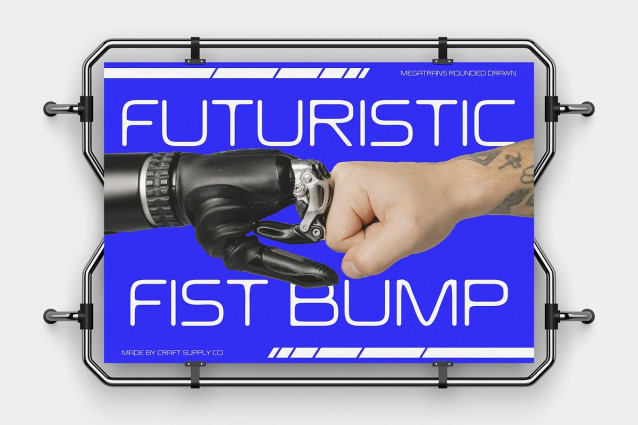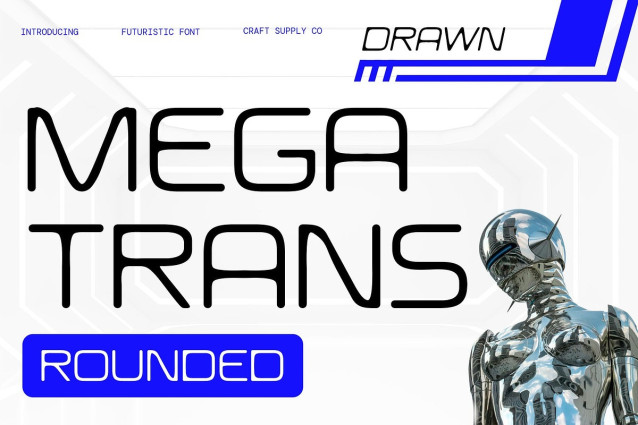
Megatrans Rounded Drawn Font
Megatrans Rounded Drawn is a modern sans serif font that combines futuristic design with a clean, geometric structure. Its sharp yet soft edges create a balanced and efficient form that conveys a sense of precision and organization.
Layered with a Drawn Effect for Artistic Charm What sets this modern font apart is its layered hand-drawn effect. This texture adds depth and personality, creating a contrast between its clean, structured form and the organic quality of the drawn lines. The hand-crafted effect introduces a unique, artistic touch that breathes life into the font, giving it a more creative, expressive feel.
Futuristic, Contemporary, and Forward-Looking The futuristic and contemporary styles of this sans serif font give it a sleek, cutting-edge look that aligns with current design trends. It speaks to innovation and progress, perfect for designs that wish to push boundaries while staying approachable and visually appealing.
Perfect for Creative Branding and Experimental Projects This font is ideal for a range of design applications, especially for creative branding, experimental layouts, or forward-thinking visual projects. Whether used for logos, posters, web design, or any project requiring both modern flair and a touch of artistic humanity, this futuristic font adds a unique voice to your typography.